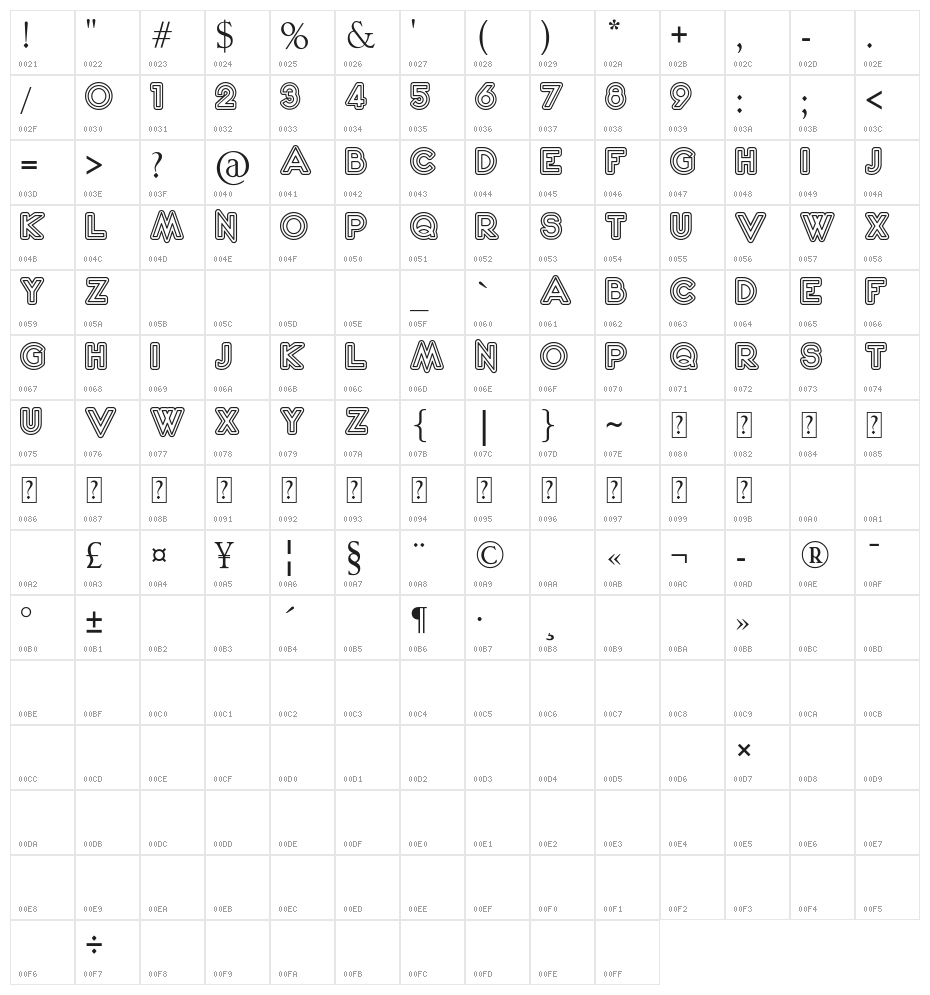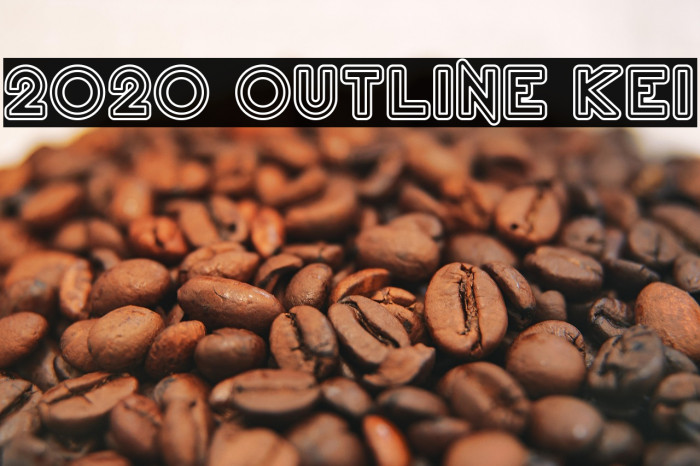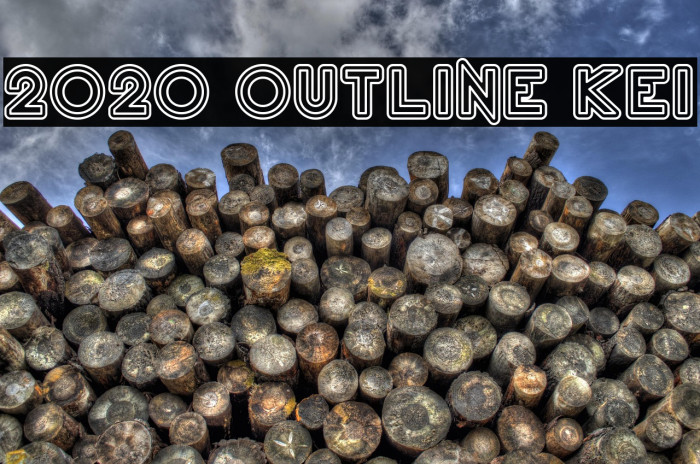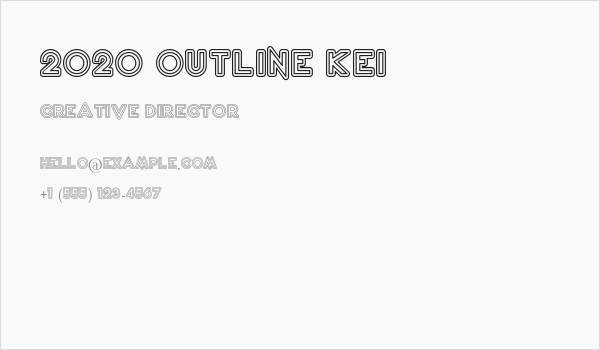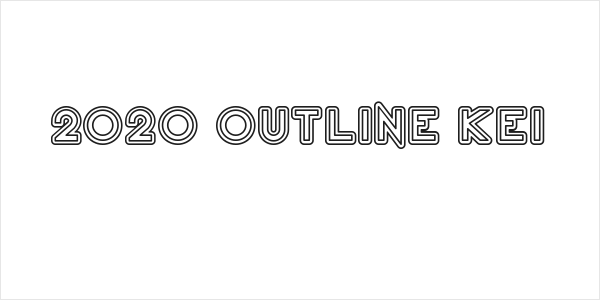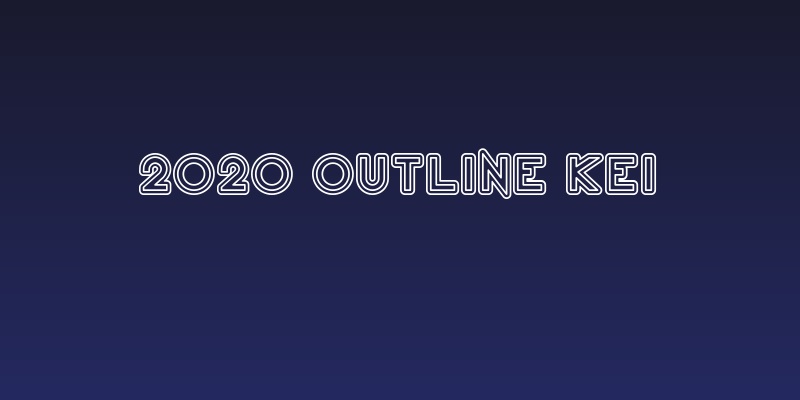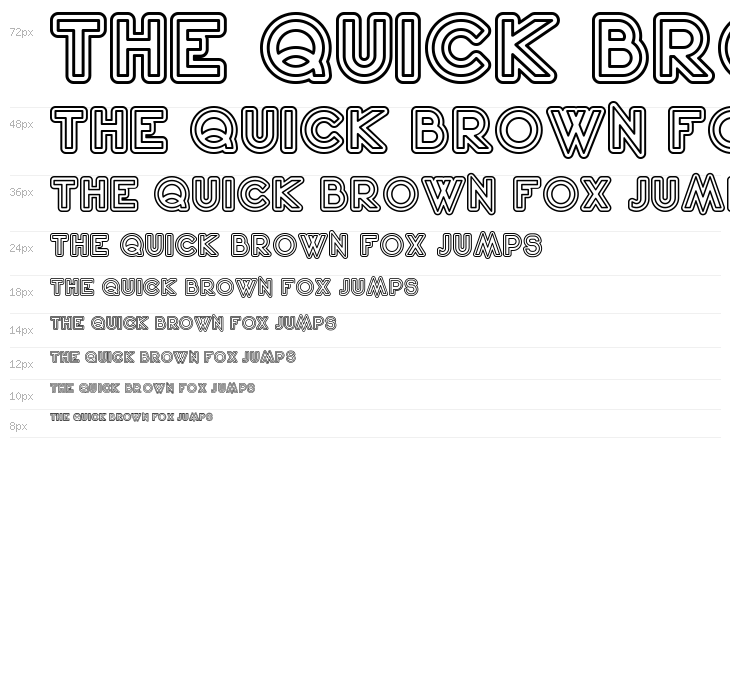
2020 Outline Kei Font
2020 Outline Kei Description
This font features a bold, geometric outline style that gives each character a striking and modern appearance. The letters are crafted with a double-line effect, creating a sense of depth and dimension. The uppercase and lowercase alphabets maintain a consistent design, emphasizing clean lines and symmetry. Numbers and special characters follow the same aesthetic, ensuring a cohesive look across all elements. The font's unique outline design makes it stand out, ideal for projects that require a bold statement or a contemporary feel.